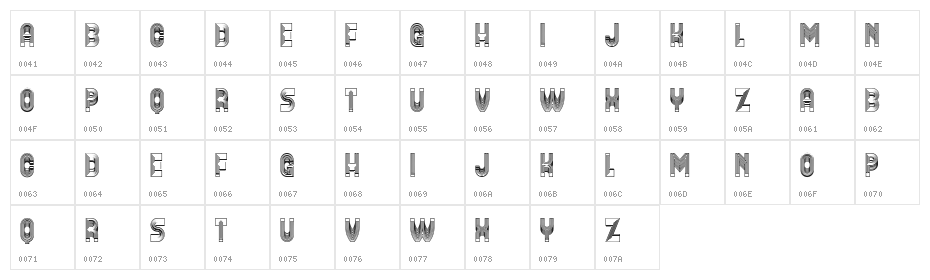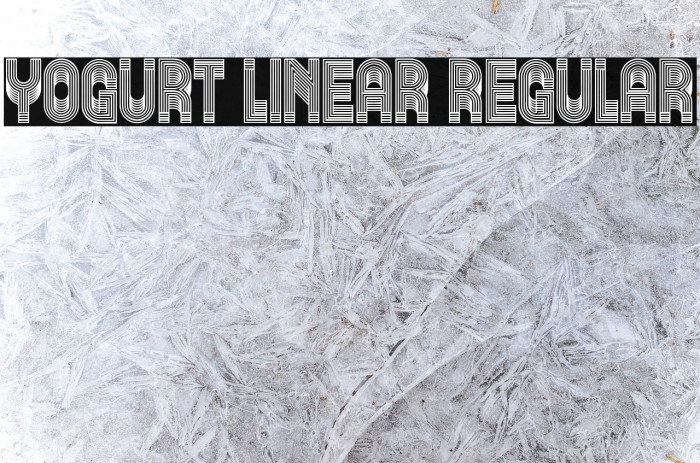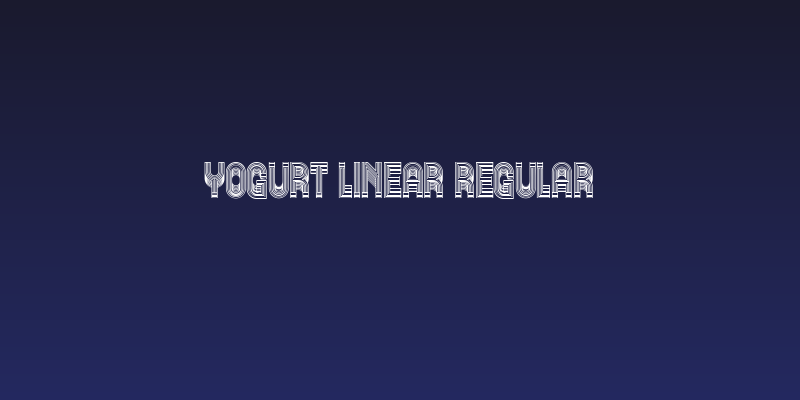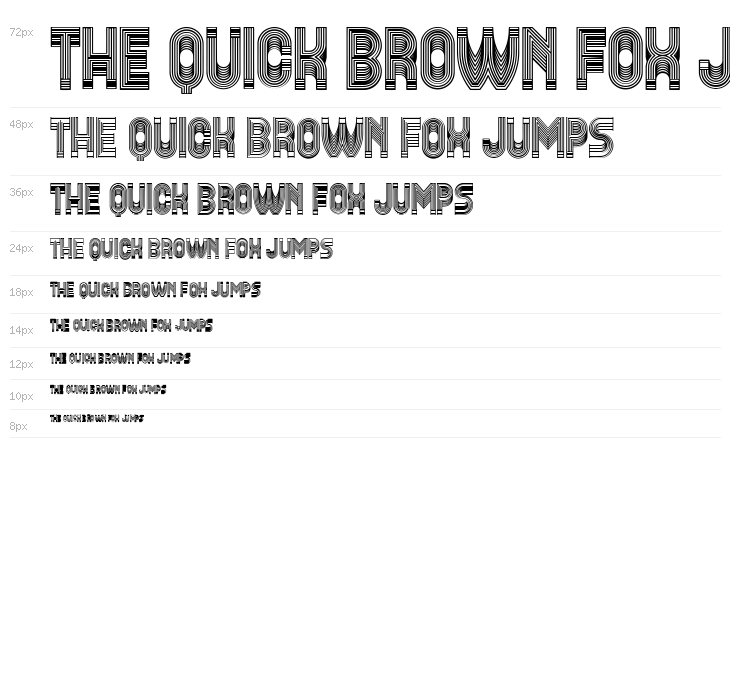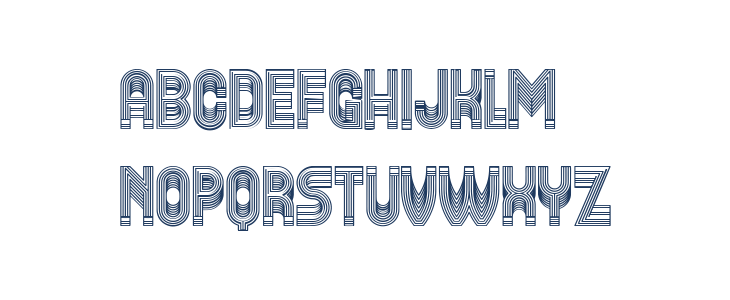
Yogurt Linear Regular Font
Yogurt Linear Regular Description
This font features a unique linear design with multiple parallel lines forming each character, creating a striking and modern appearance. The letters are uppercase and have a geometric structure, giving them a bold and eye-catching look. The intricate line work adds depth and texture, making it suitable for creative and artistic projects. The font's style is both contemporary and decorative, ideal for making a statement in design work.
| Proposed Projects | Ideal for posters, album covers, branding, and any project requiring a bold, artistic touch. |